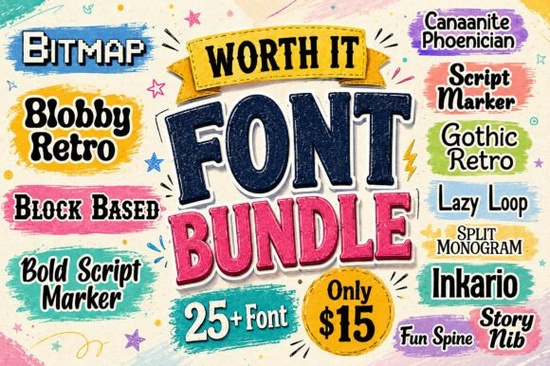
If you’ve been searching for a font bundle that gives you variety without sacrificing style, the Worth It Font is worth a closer look especially if you’re juggling multiple design projects or clients. Whether you’re making t-shirts, branding a small shop, or putting together social media graphics, this collection covers a surprising amount of ground with fonts that feel handpicked rather than thrown together.
What kinds of designs work best with these fonts?
The Worth It Font Bundle includes retro, gothic, script, marker, monogram, and bold display styles which means it’s not just one-note. You can pair a playful handwritten font with a clean sans-serif for contrast, or go full vintage with layered retro lettering. These fonts shine in:
- Print-on-demand products like mugs, totes, and stickers where personality matters more than perfection.
- Social media posts that need to grab attention without looking overdesigned.
- Small business branding think boutique packaging, cafe menus, or handmade product labels.
- Event posters and flyers where bold, readable type makes all the difference.
How do these compare to other display fonts on Creative Fabrica?
Display fonts live or die by how well they stand out and how easy they are to pair. The Worth It bundle holds up because it doesn’t just give you “loud” fonts; it gives you fonts with distinct personalities that still play nice together. You won’t struggle to find a matching script for your bold headline, or a clean monogram to balance out a grungy marker style.
Compared to something like Sweet Cricut, which leans sweet and whimsical, Worth It offers more edge and versatility. Need something elegant? There’s a monogram font for that. Need something gritty for a concert poster? There’s a distressed gothic option. It’s less about fitting one aesthetic and more about having options ready when inspiration strikes.
Any tips for getting the most out of this bundle?
A few practical ideas to help you make the most of what you’ve downloaded:
- Start with contrast. Pair a thick, bold font with a thin script or delicate monogram. The visual tension makes both fonts pop.
- Don’t overdo it. Even though there are dozens of fonts, stick to 2–3 per design unless you’re going for intentional chaos.
- Test readability at small sizes. Some decorative fonts look great big but fall apart on product tags or Instagram captions. Preview before finalizing.
- Layer with textures or backgrounds. Many of these fonts were designed to sit on top of photos, fabric patterns, or grunge overlays try it out.
And if you’re ever stuck on pairing ideas, open two fonts side by side in your design tool and type the same word in both. Sometimes seeing them next to each other sparks the perfect combo.
Who should skip this bundle?
If you’re strictly looking for body text fonts or minimalist sans-serifs for corporate reports, this isn’t your set. These are display fonts through and through meant to be seen, not read in paragraphs. But if your work lives in the world of visuals, branding, and creative expression, you’ll likely find at least half a dozen fonts here you’ll use again and again.
Also, if you already own a lot of retro or script fonts from Creative Fabrica like those in the Worth It category check the previews first to avoid overlap. That said, the mix of styles here is broad enough that even seasoned font collectors usually find something new.